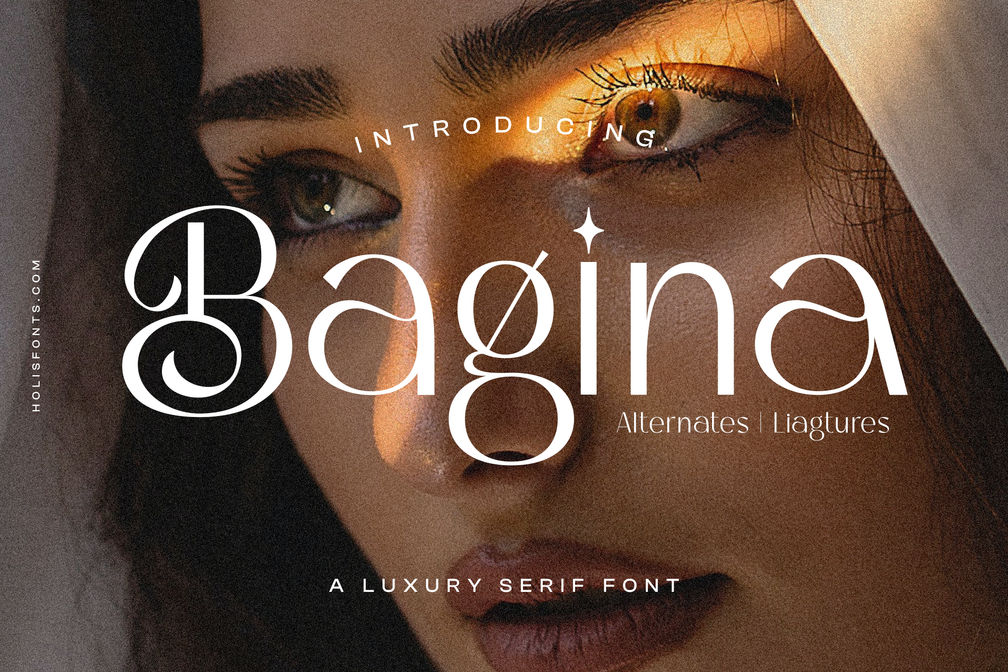
- Bagina Serif
Introducing a minimal and casual serif font with alternates and ligatures. This font brings a luxurious and clean style to your website, it can also be used as a brand logo such as fashion, jewelry, cosmetics etc.